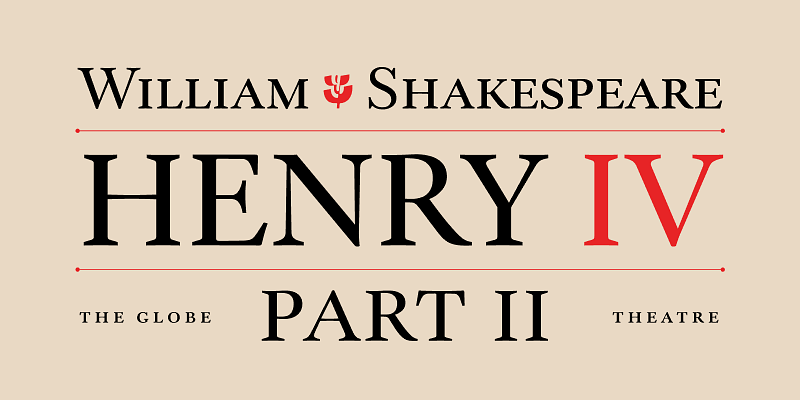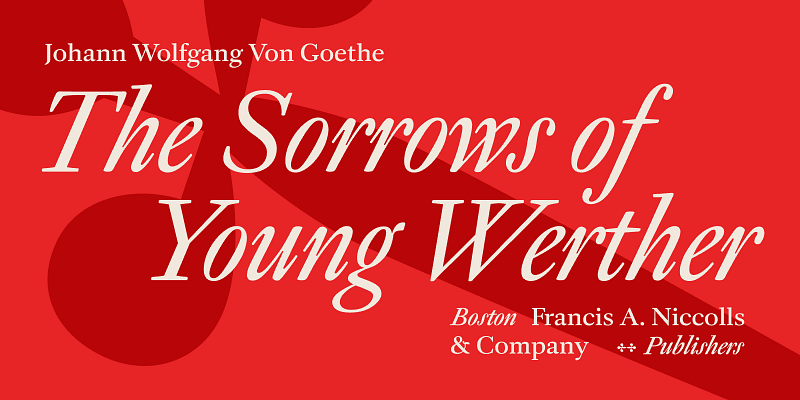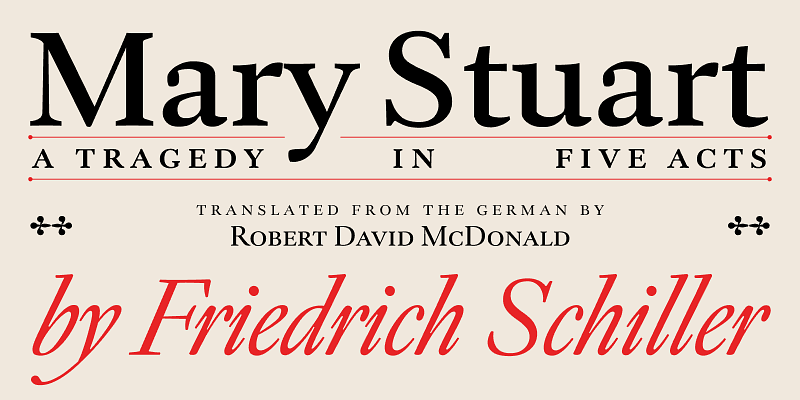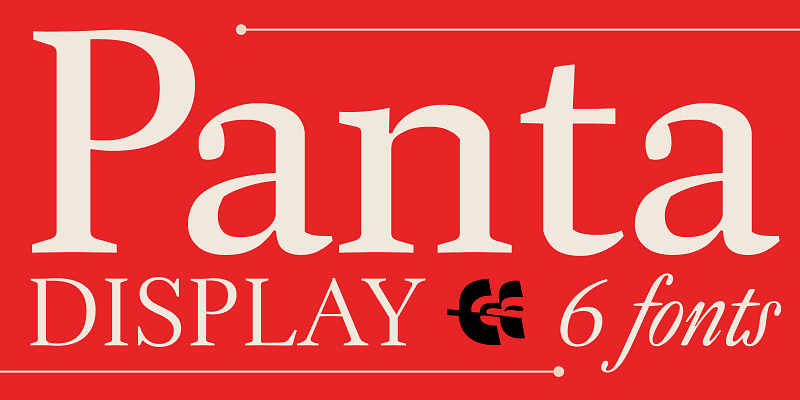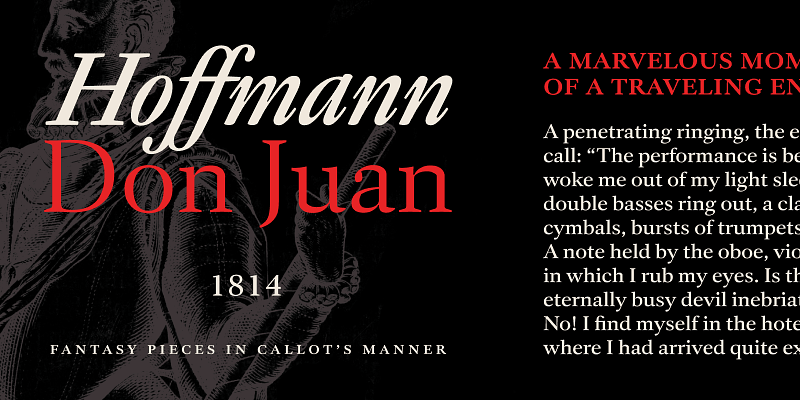
Panta Display is a serif family inspired by W. A. Dwiggins’ hand-lettered book design for Gargantua & Pantagruel. The family carries a warm, literary, and confident mid-century spirit and is filled with typographic niceties such as small caps, old-style and lining figures, and dramatic italics. Shaped by subtle asymmetries and lively curves, Panta is a comfortable read in long-form books, but has the editorial style to work in magazines, where personality is welcomed.